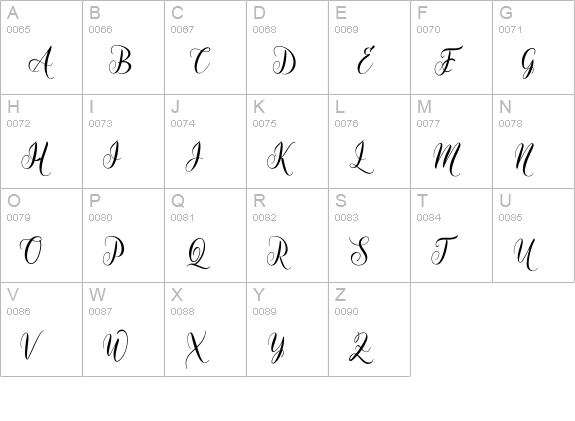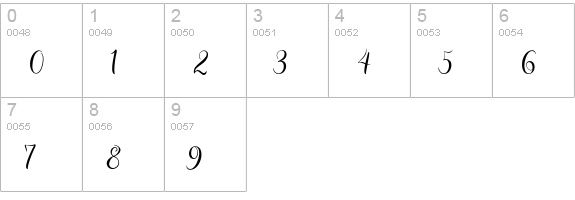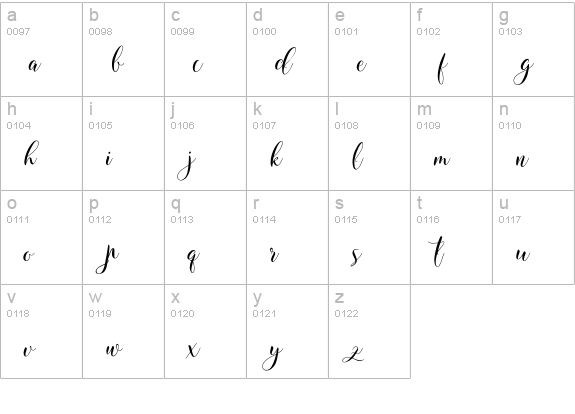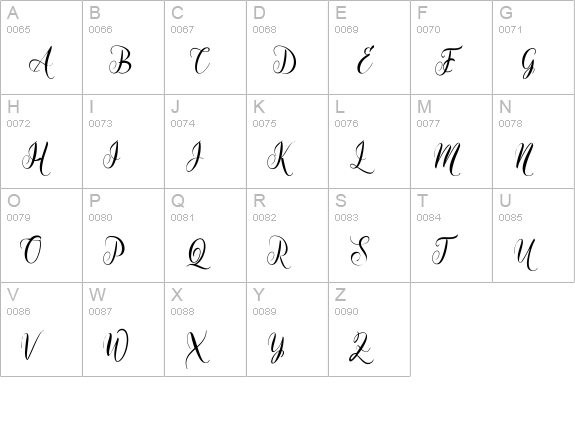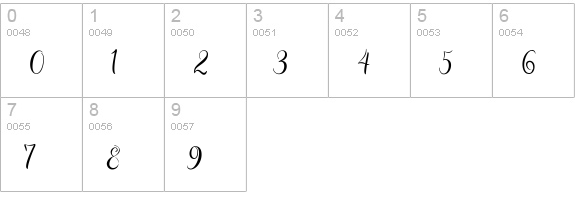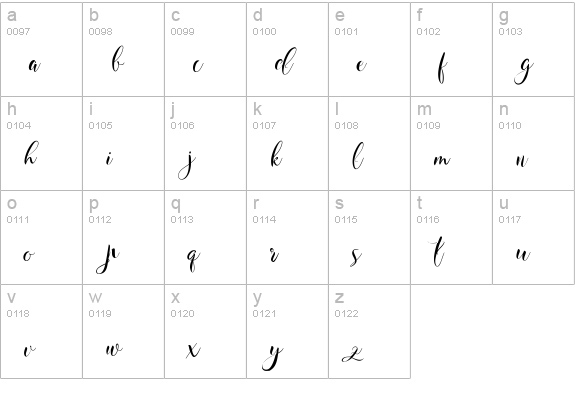
Amigirl Script font is a delightful and elegant typeface that exudes a sense of charm and sophistication. Its flowing cursive style is perfect for adding a touch of femininity to any design project, whether it be invitations, branding, or packaging. The gentle curves and graceful strokes of Amigirl Script give it a timeless appeal that is both modern and classic. What makes Amigirl Script even more appealing is that it is completely free to download at FontsMarket.com. This means that you can easily access this beautiful font and use it in your creations without any cost. With its versatility and beauty, Amigirl Script is sure to become a favorite in your font collection. Add a touch of elegance to your designs today with Amigirl Script font.